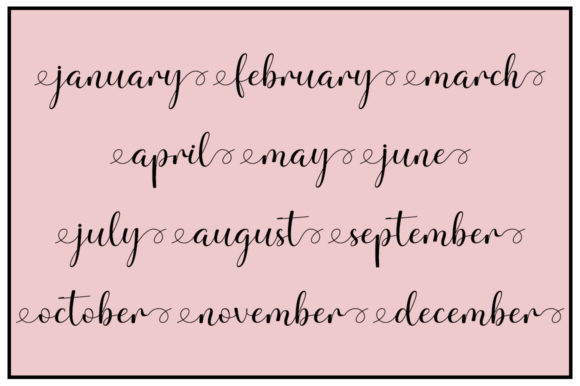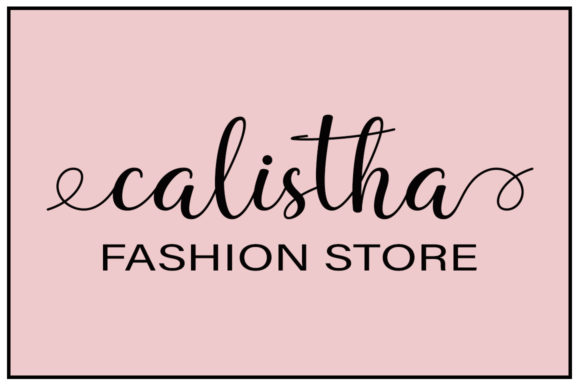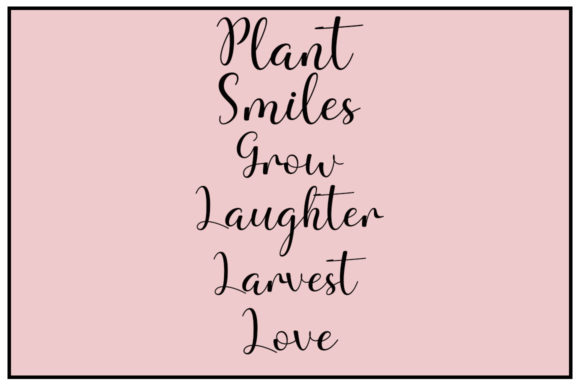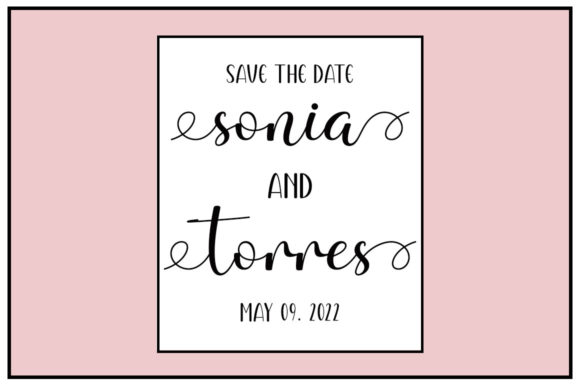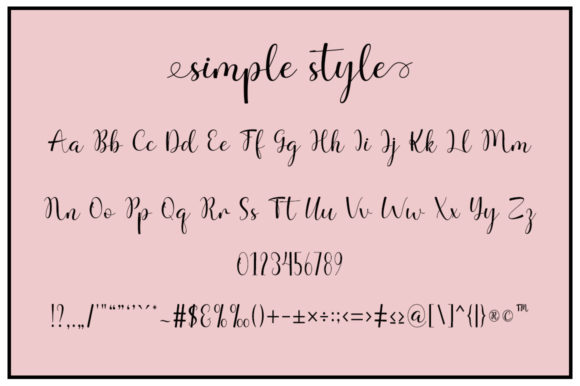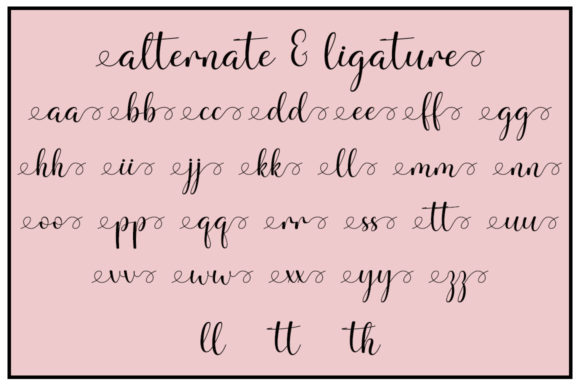
Introduction to Simple Style Font
Do you remember that moment when you’re working on a creative project, and you just can’t find the right font to bring it all together? The words are stuck, the design is dull, and you feel like you’ve hit a wall. That’s where the Simple Style Font comes in – a game-changing design resource that will add a touch of luxury to your project.
As a designer, you know that the right font can make all the difference. It’s not just about choosing a font, it’s about selecting a font that speaks to your audience, conveys your message, and adds a high-quality finish to your work. That’s exactly what the Simple Style Font does – it’s a beautiful, handwritten font that will transport your project to a new level of sophistication and elegance.
With its romantic and sweet feel, the Simple Style Font is the perfect choice for any creative project, from wedding invitations to packaging design. And the best part? It’s available for free download, making it an accessible design resource for designers of all levels.
Key Features of Simple Style Font
- High-quality design resource ideal for creative projects, including logos, branding, and graphics.
- Includes 100 unique glyphs, making it perfect for a variety of creative projects.
- Designed with a clean and minimalist aesthetic, ensuring it stands out in high-resolution displays (up to 300 DPI).
Honest Review: Simple Style Font
I recently came across the Simple Style Font, and I must say it’s a game-changer for my design projects. As a designer, I’m always on the lookout for high-quality fonts that can elevate my work and make it stand out.
This font is perfect for a creative project that requires a clean and modern look. The Simple Style Font is a versatile design resource that can be used for a variety of purposes, from branding to digital design.
- ✨ High-quality design that’s perfect for modern projects
- ✨ Transparent background, making it easy to use with any design element
While the Simple Style Font is a great addition to any design library, I did notice a few limitations. The font doesn’t come with as many variations as I would have liked, and some users may find it a bit too simplistic for more complex projects.
- ⚠️ Limited variations, which may not be suitable for all design projects
- ⚠️ May not be the best choice for more complex or detailed designs
Overall, I’m impressed with the Simple Style Font. It’s a high-quality design resource that’s perfect for modern projects. While it may not be the most versatile font, it’s a great addition to any design library.
Simple Style Font
Tips for Getting the Most Out of Simple Style Font
For optimal results, use Simple Style Font in conjunction with other design elements to create a cohesive and high-quality design. Experiment with different font sizes, colors, and styles to find the perfect combination for your project.
Simple Style Font is ideal for a variety of creative projects, including logo design, infographics, and social media graphics. Its transparent background feature makes it perfect for use on images with complex backgrounds. The font is also available for free download, making it a valuable design resource for any project.